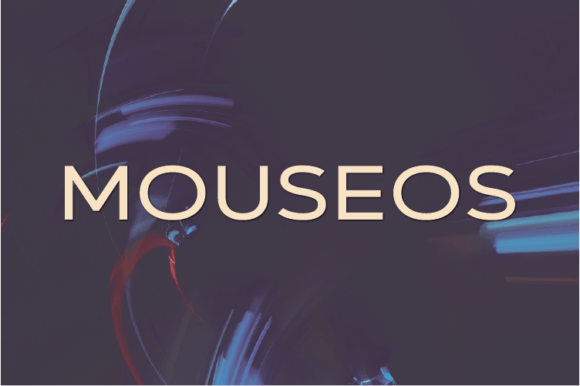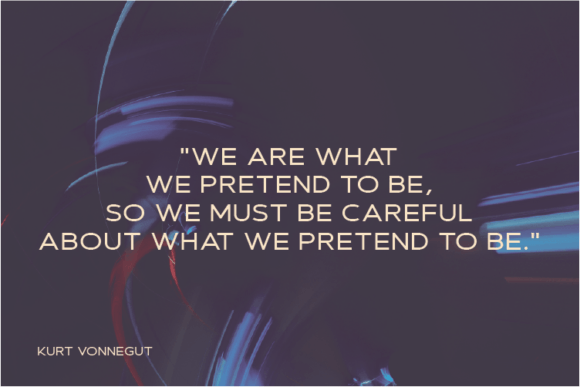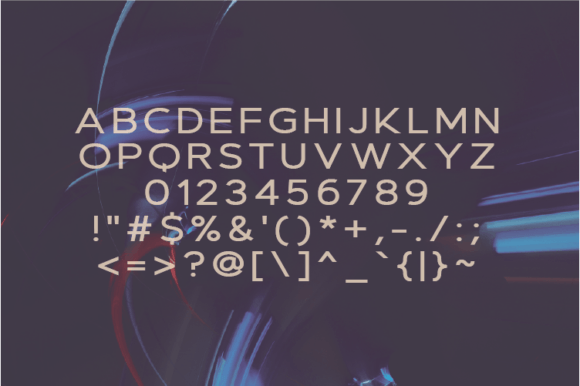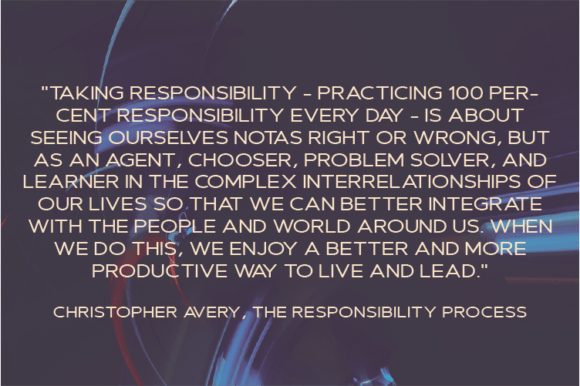
Mouseos Font: Modern Sans Serif for Logo Design & Aesthetic Typography
About the Mouseos Font
Introducing the Mouseos Font, a beautifully crafted typeface designed to elevate your creative projects. Introducing Mouseos, a modern, classy sans serif typeface.
An extremely versatile font, perfect for logos, weddings, invitations, quotes, advertisements, print, magazines, and more!
Mouseos excels in display applications such as headlines, logos, and short-form text on posters or invitations. Its clean lines and modern feel make it ideal for branding projects aiming for a sophisticated yet approachable aesthetic. However, its relatively high x-height might make it less suitable for extended body copy or UI elements where readability over long passages is crucial.
Consider pairing Mouseos with a classic serif like Garamond for a touch of elegance or a geometric sans-serif like Futura for a more contemporary and structured feel. For a softer contrast, a script font like Allura can add a handwritten touch to balance its clean lines.
Mouseos projects an overall feeling of confident modernity, lending itself well to brands focused on technology, luxury goods, or design-driven businesses. Avoid using it for projects requiring a playful or highly informal tone.